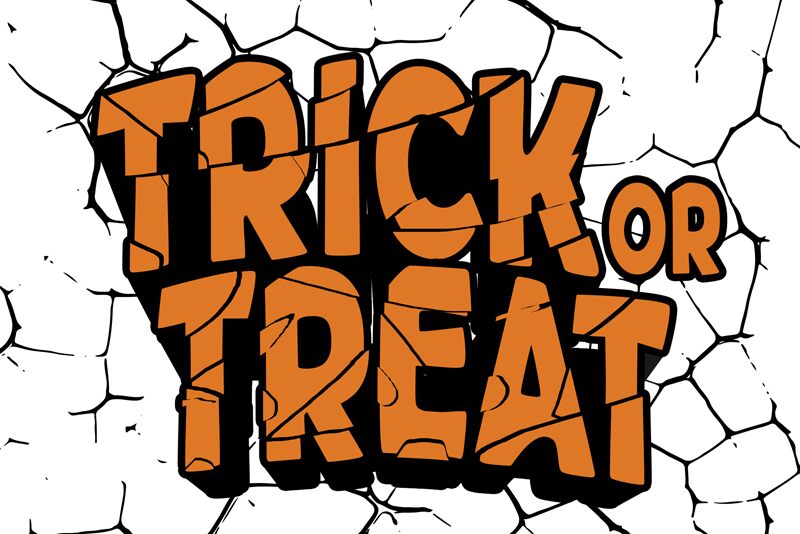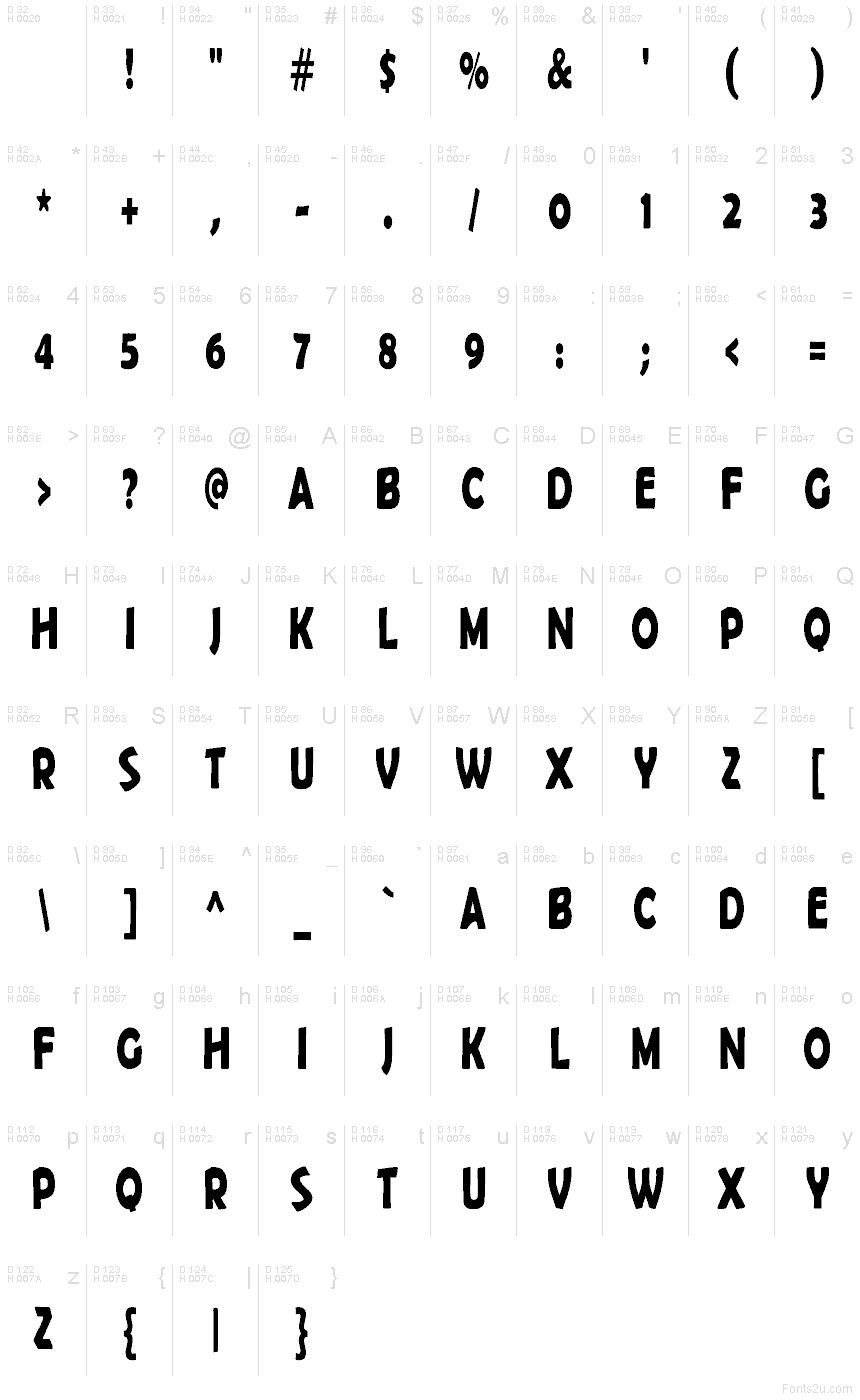
Trick Or Treat
Trick or Treat font is a free bold decorative Halloween display font. Built for spooky headlines, it throws big, bouncy caps with hand-cut edges and a slightly wobbly rhythm, like letters carved from black paper. The strokes feel inky and dense, giving high contrast that stays readable at a glance while still looking mischievous.
Using Trick or Treat, you can nail party posters, haunted house flyers, candy labels, YouTube thumbnails, stickers, and social posts without extra illustration. The chunky forms hold color and texture beautifully—think orange fills with chalky overlays. This free font shines at larger sizes; pair it with a thin geometric sans for details to keep the scares sharp and the message clear.